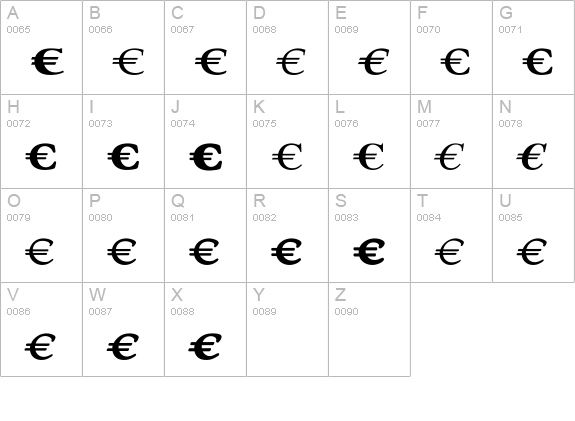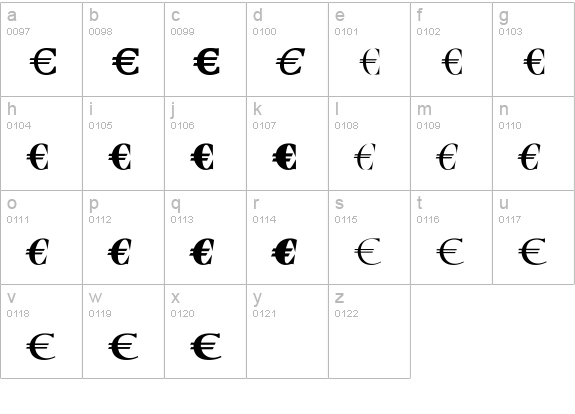
EuroSerifEF-Fife is a stunning and versatile serif font that exudes elegance and sophistication. This typeface features clean lines and classic proportions that make it perfect for a wide range of design projects. Whether you are creating invitations, logos, posters, or branding materials, EuroSerifEF-Fife will add a touch of timeless beauty to your work. One of the best things about EuroSerifEF-Fife is that it is free to download at FontsMarket.com. This means that you can easily access this exquisite font without any cost, making it an excellent choice for designers on a budget. With its timeless appeal and easy accessibility, EuroSerifEF-Fife is a font that you'll want to add to your collection today.